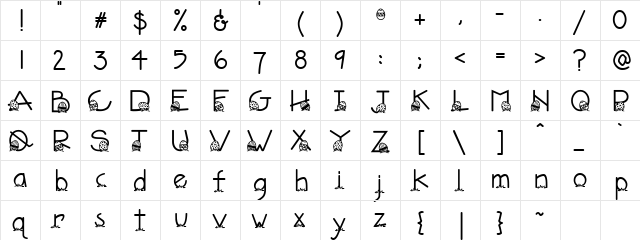
DJ Easter Egg Regular
Design Context for DJ Easter Egg Typeface
DJ Easter Egg is a composed and adaptable typeface that performs quietly and consistently across a wide range of design contexts.